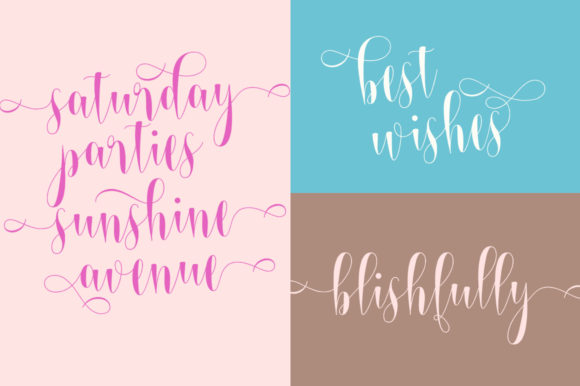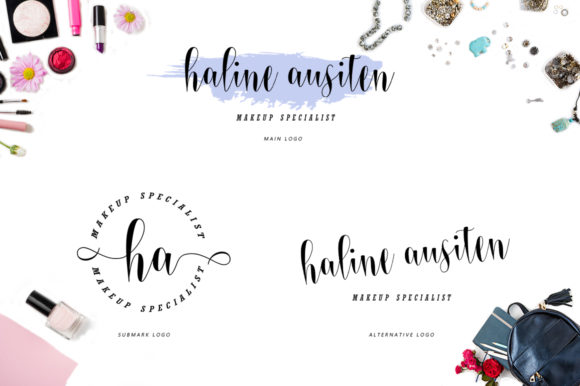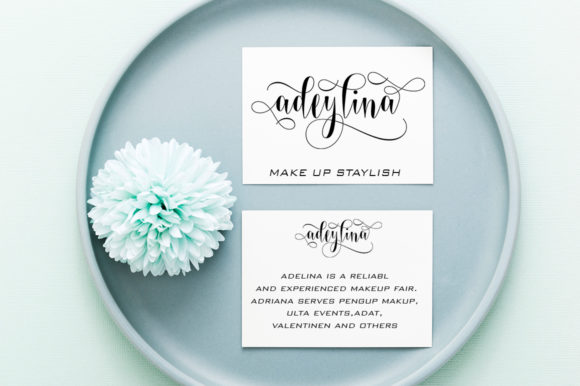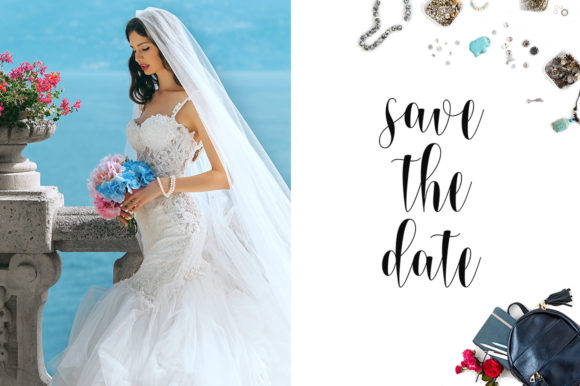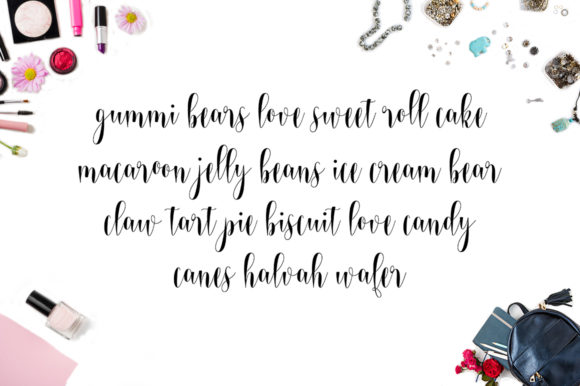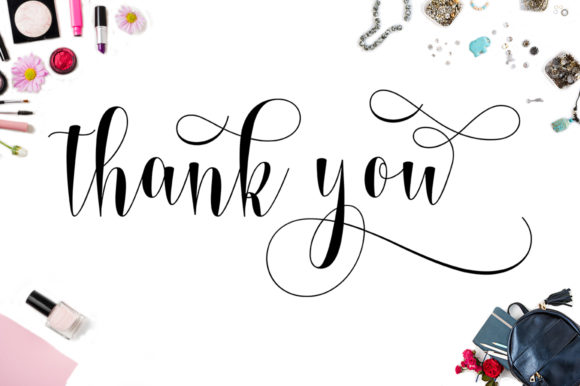
Adeylina Font: The Perfect Script Font for Your Creative Designs
Are you looking for a beautiful script font to add a touch of romance and elegance to your designs? Look no further than Adeylina Font! This gorgeous script font is perfect for designers and crafters who want to create stunning wedding invitations, stationary art, social media posts, and greeting cards that will leave a lasting impression.
What Makes Adeylina Font So Special?
Adeylina Font is a unique and authentic script font that features cute extras that will add a romantic touch to your designs. Its beautiful and flowing curves will make your designs stand out from the crowd. With Adeylina Font, you can create gorgeous wedding invitations, beautiful stationary art, eye-catching social media posts, and cute greeting cards that will capture the hearts of your audience.
Key Features of Adeylina Font
Adeylina Font comes with a range of exciting features that make it a must-have for designers and crafters. Some of its key features include:
- PUA Encoding: Adeylina Font is PUA encoded, which means you can access all of the amazing glyphs and swashes with ease. This makes it easy to use and customize the font to suit your design needs.
- Alternate Glyphs and Ligatures: The font features a wealth of special features, including alternate glyphs and ligatures. These allow you to add more variety and creativity to your designs.
- Cute Extras: Adeylina Font comes with cute extras that will add a romantic touch to your designs. These extras include swashes, flourishes, and other decorative elements that will make your designs stand out.
Uses of Adeylina Font
Adeylina Font is a versatile font that can be used for a range of design projects. Some of the most popular uses of the font include:
- Wedding Invitations: Create stunning wedding invitations that will set the tone for the big day. Adeylina Font is perfect for creating beautiful and elegant wedding invitations that will impress your audience.
- Stationary Art: Use Adeylina Font to create beautiful stationary art, including notecards, journals, and planners. The font’s flowing curves and romantic touch make it perfect for creating stunning stationary art.
- Social Media Posts: Create eye-catching social media posts that will grab the attention of your audience. Adeylina Font is perfect for creating stunning social media graphics, including Facebook posts, Instagram stories, and Twitter headers.
- Greeting Cards: Use Adeylina Font to create cute and personalized greeting cards for special occasions, including birthdays, anniversaries, and holidays.
Why Choose Adeylina Font?
There are many script fonts available, but Adeylina Font stands out from the crowd. Here are some reasons why you should choose Adeylina Font for your design projects:
- Unique and Authentic: Adeylina Font is a unique and authentic script font that will add a touch of elegance and sophistication to your designs.
- Easy to Use: The font is PUA encoded, which makes it easy to use and customize. You can access all of the amazing glyphs and swashes with ease.
- Versatile: Adeylina Font is a versatile font that can be used for a range of design projects, including wedding invitations, stationary art, social media posts, and greeting cards.
In conclusion, Adeylina Font is a gorgeous script font that is perfect for designers and crafters who want to create stunning designs. Its unique and authentic feel, cute extras, and special features make it a must-have for any design project. With Adeylina Font, you can create gorgeous wedding invitations, beautiful stationary art, eye-catching social media posts, and cute greeting cards that will leave a lasting impression. So why wait? Get Adeylina Font today and start creating stunning designs that will capture the hearts of your audience!